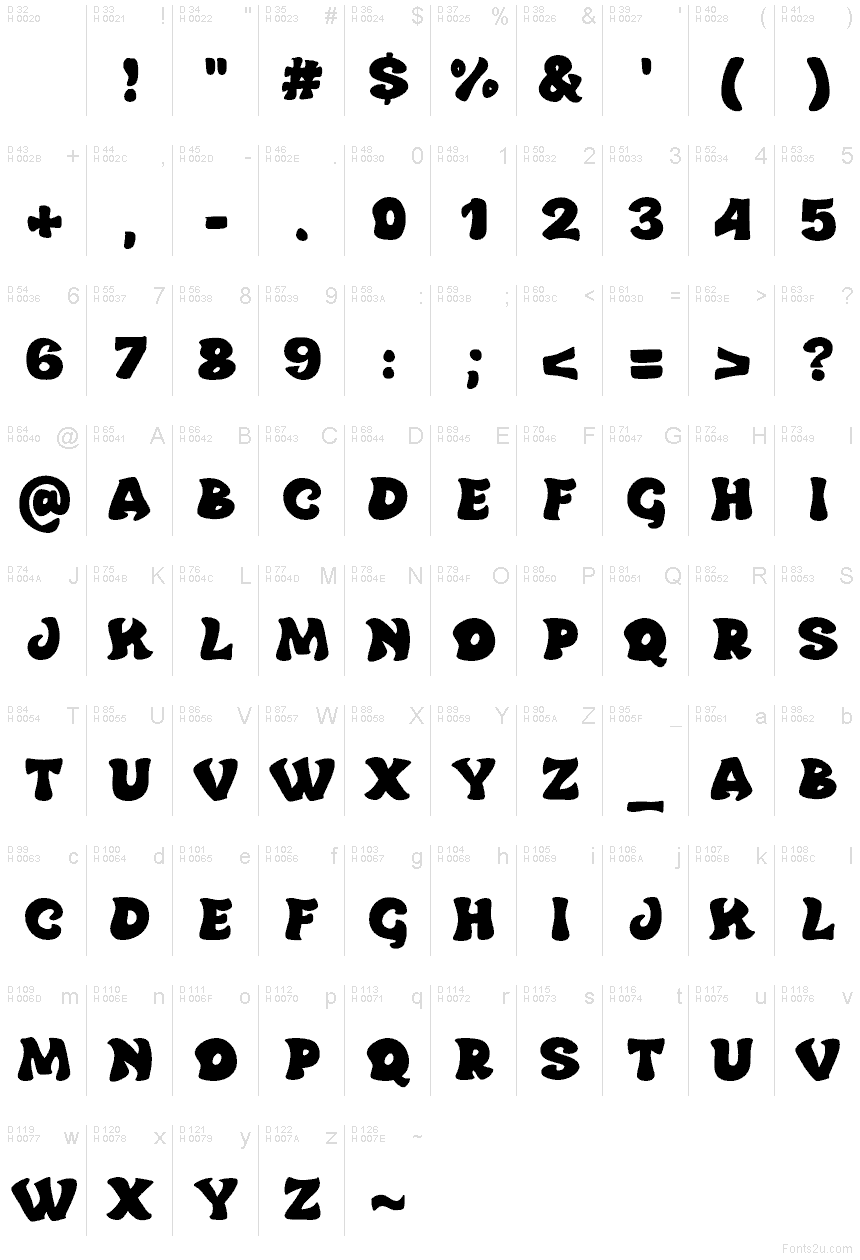
Fire Hole
Fire Hole font designed by MJType is a bold and quirky typeface with a retro vibe that does not fall short of presence. It can be easily distinguished by its uneven texture and wavy lines which оvеrаll give it a groovy style. Explore this visual free display font for all your designs – professional, casual, or simply fun ideas.
Unleash Fire Hold in book covers, comics titles, advertising campaigns, magazine articles, branding designs (logos & labels), packaging design (snacks/cinema), flyers and other promotional material. Social media posts will love the fun side of this bold typeface just as much as t-shirt designs or other apparel items like hats and pants.